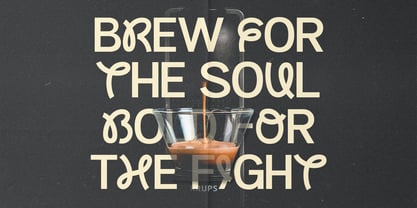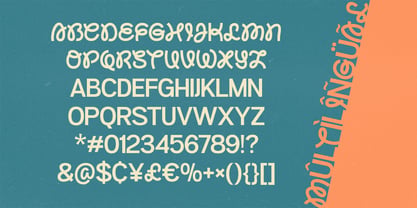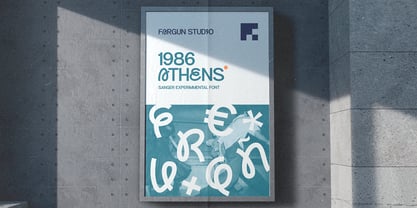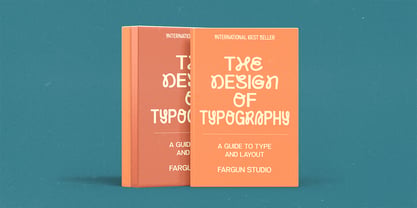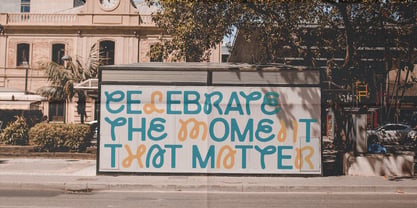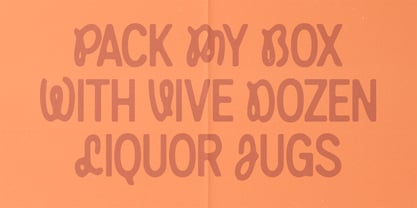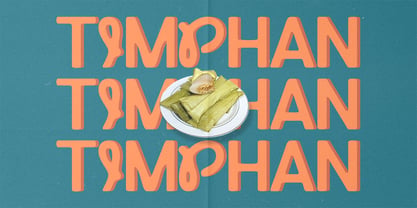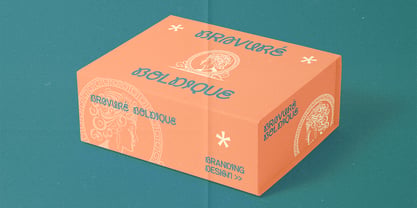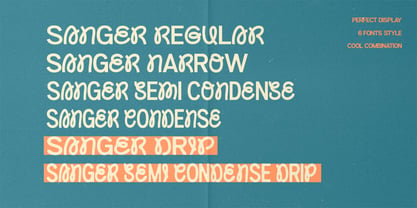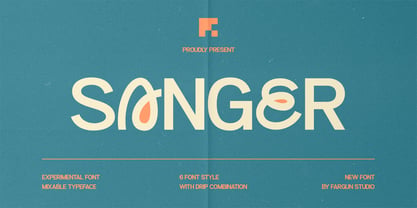
Sanger
by Fargun Studio
The Sanger Font Family was designed by Fajar Gunawan and published by Fargun Studio. Sanger contains 6 styles and family package options. More about this family
Sanger Font is an experimental typeface collection that brings together six distinct and contrasting styles. Among them are two eye-catching drip styles that add a bold, edgy twist—making this font truly stand out.
With built-in multi-language support, Sanger Font makes it easy to design across different languages and cultures. Whether you’re working on posters, logos, branding, social media graphics, books, or magazines, this font is a perfect choice to bring a unique and creative flair to your projects.
Designers: Fajar Gunawan
Foundry: Fargun Studio